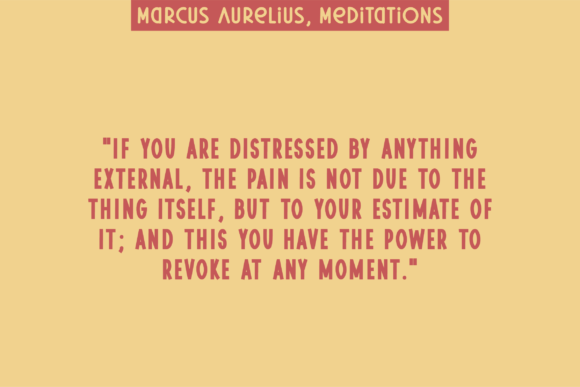
Introduction to Jalapeno Font
Do you remember that moment when you stumbled upon the perfect font for your creative project? The one that made your design pop and stood out from the crowd? For designers, this is a regular occurrence, but for those who haven’t found that special font yet, it’s like discovering a treasure trove of inspiration. And for those who have been searching for a high-quality sans serif font, the wait is over. Meet the Jalapeno Font, a natural and unique design resource that’s perfect for quotes, notes, tees, and any product design.
What makes the Jalapeno Font truly special is its transparent background and lack of modifications to its original design. This attention to detail is a testament to the designers who created it, and it’s a valuable resource for designers who want to add a touch of elegance and sophistication to their work. And the best part? It’s available for free download, making it an accessible design resource for anyone.
Key Features of Jalapeno Font
- High-Quality Design: The Jalapeno Font is a high-quality design resource ideal for creative projects, offering a unique and stylish look.
- Transparent Background: The font features a transparent background, allowing for easy integration with various design elements and backgrounds.
- Unique Characteristics: The Jalapeno Font features a unique, hand-drawn style with intricate details, making it perfect for adding a personal touch to creative projects.
Honest Review: Jalapeno Font
I recently had the chance to work with the Jalapeno Font, and I must say it’s been a delightful addition to my design projects. As a designer, I’m always on the lookout for high-quality fonts that can elevate my creative work, and Jalapeno Font definitely delivers. ✨
One of the standout features of this font is its versatility. It’s perfect for use in logos, branding materials, and even digital displays. The font is available for free download, making it an excellent design resource for anyone looking to enhance their projects without breaking the bank.
Here are some of the key benefits of using Jalapeno Font:
- High-quality design with a clean and modern aesthetic
- Perfect for use in creative projects, such as logos, branding materials, and digital displays
- Works well with transparent backgrounds, allowing for seamless integration into any design
However, I do have to mention a few limitations: ⚠️
- The font may not be suitable for use in very small sizes, as the letters can become difficult to read
- The font is not available in as many weights and styles as some other popular fonts
Overall, I’m really impressed with the Jalapeno Font. It’s a great addition to any designer’s toolkit, and I highly recommend it for anyone looking for a high-quality, free font that can elevate their creative projects.
Tips for Getting the Most Out of Jalapeno Font
To get the most out of the Jalapeno Font, make sure to pair it with a transparent background for a seamless design. Experiment with different font sizes and styles to add depth and visual interest to your project. You can also use the font in combination with other design resources for a unique and creative look.
The Jalapeno Font is perfect for a variety of creative projects, including graphic design, branding, and digital marketing. You can use it for social media graphics, blog posts, and presentations. The font’s unique style and high-quality design make it an excellent choice for any creative project.